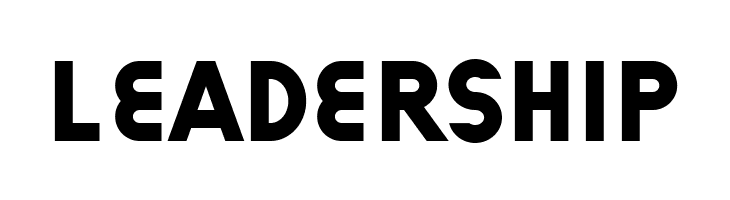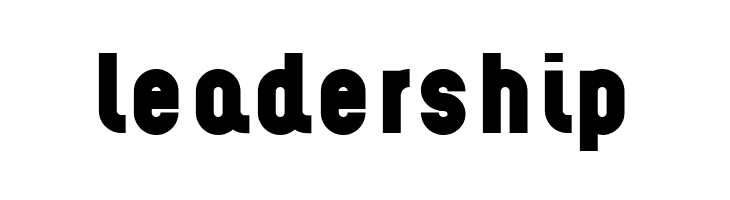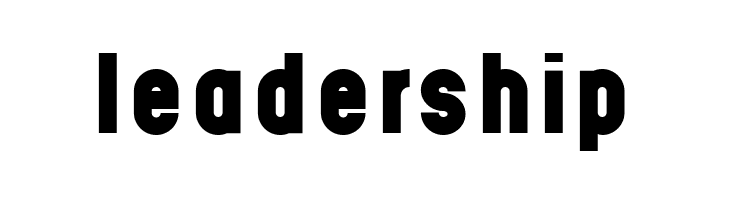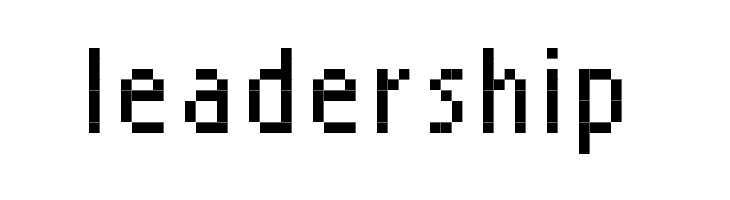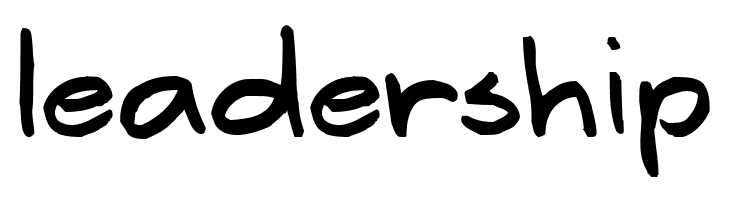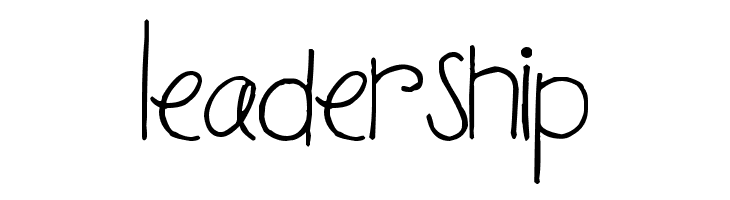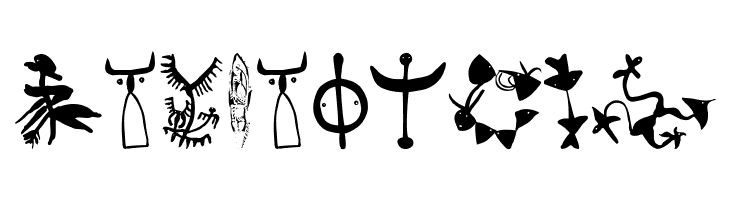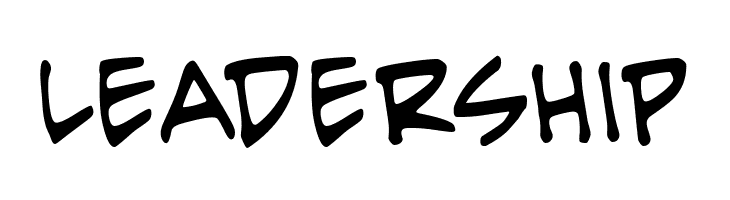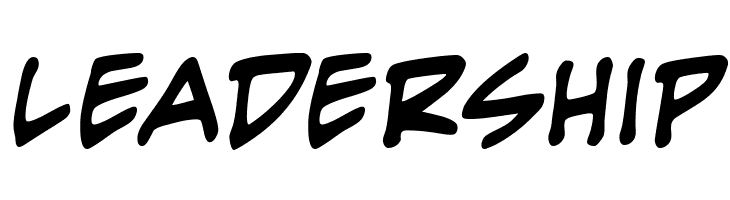
A bold, geometric font with sharp angles and a blocky, industrial design.
A bold, playful, hand-drawn font with dynamic and irregular characters.
A bold, geometric font with Art Deco influences and strong architectural elements.
A bold, geometric font with a double-line style and modern aesthetic.
Bold, casual handwritten script with energetic strokes.
A whimsical font featuring stick figures with expressive faces as characters.
A sophisticated script font with smooth, flowing lines and graceful curves.
( Fonts by Florian Bambhout - www.bambootypes.net )
A bold, slanted font with a geometric and dynamic style.
( Fonts by DumadiStyle )
A bold, playful font with a whimsical, hand-drawn style.
( Fonts by DumadiStyle )
A playful, Halloween-themed decorative font with bold, illustrated characters.
A bold, modern font with strong, impactful characters.
A bold, italic font with dynamic, slanted letterforms for a modern and energetic look.
A bold, geometric font with sharp angles and a strong presence.
( Fonts by Masa Aska Sanurumi )
A bold, playful handwritten font with a lively and casual style.
A graceful and flowing script font with elegant, cursive strokes.
A bold, geometric font with a playful, vintage style.
A bold, graffiti-inspired font with dynamic, expressive strokes.
A bold, graffiti-inspired font with dynamic strokes and sharp angles.
A lively cursive script font with fluid, connected letters and elegant curves.
Elegant cursive font with graceful loops and swashes.
A bold, distressed font with a vintage, textured appearance.
( Fonts by imagex )
A bold, dripping font perfect for spooky or horror-themed designs.
A playful, hand-drawn font with elongated, irregular characters.
( Fonts by Ingo Zimmermann - www.ingofonts.com )
A bold, geometric font with a modern and industrial style.
( Fonts by Ingo Zimmermann - www.ingofonts.com )
A geometric, minimalist font with thin, even strokes and angular shapes.
( Fonts by Ingo Zimmermann - www.ingofonts.com )
A distinctive, hand-drawn style font with elegant, irregular strokes.
( Fonts by Ingo Zimmermann - www.ingofonts.com )
A bold, artistic serif font with unique curves and strong presence.